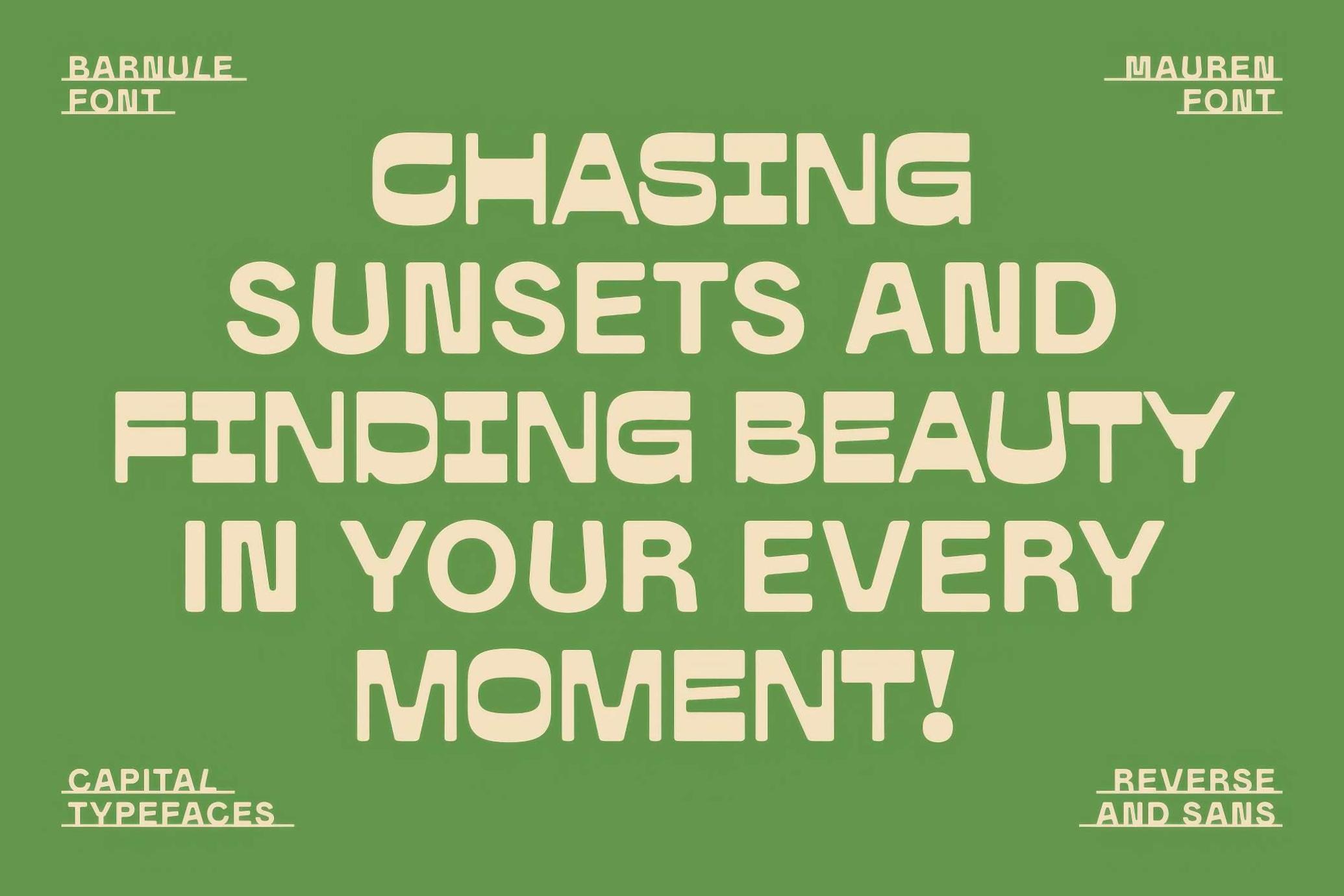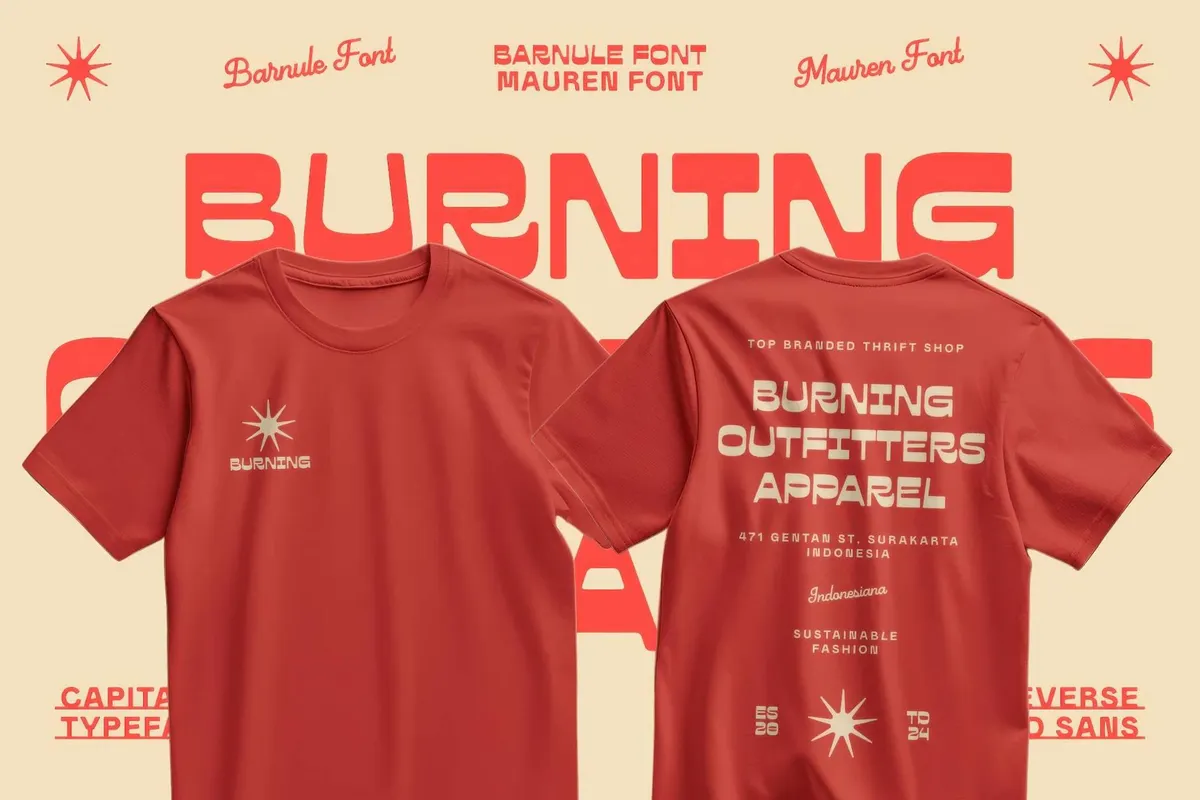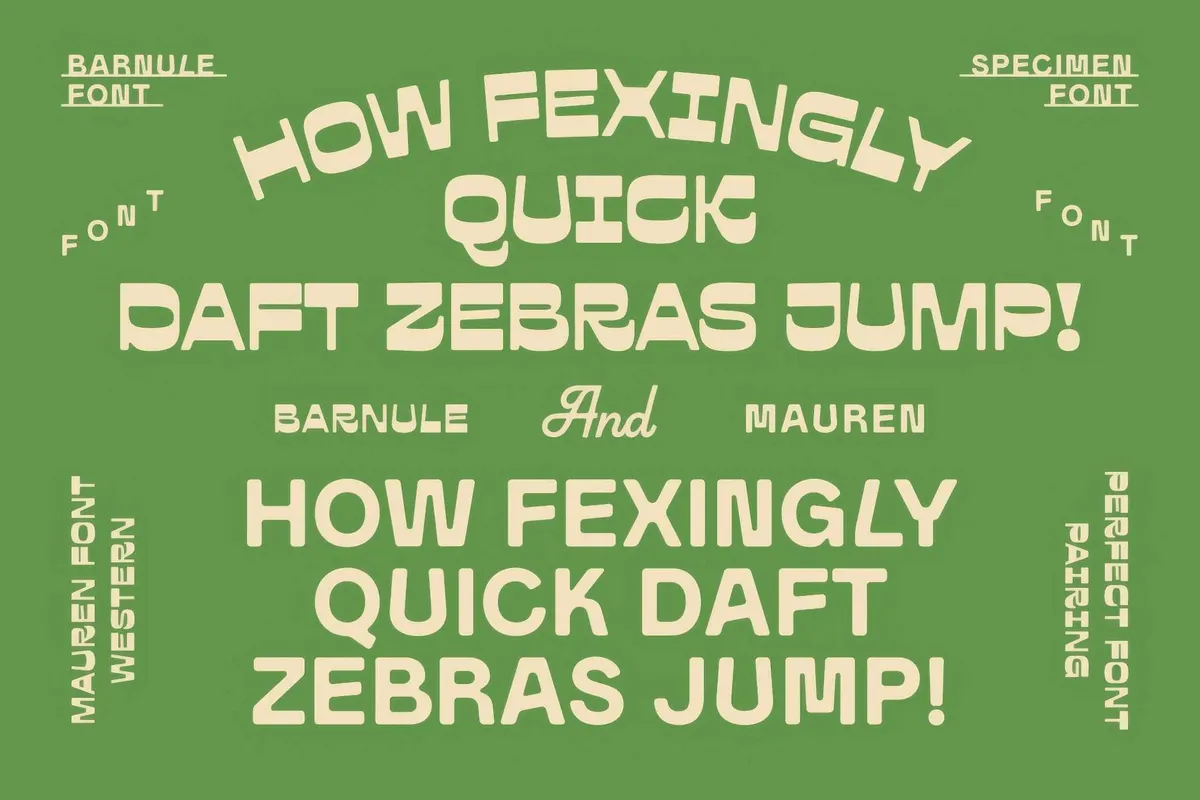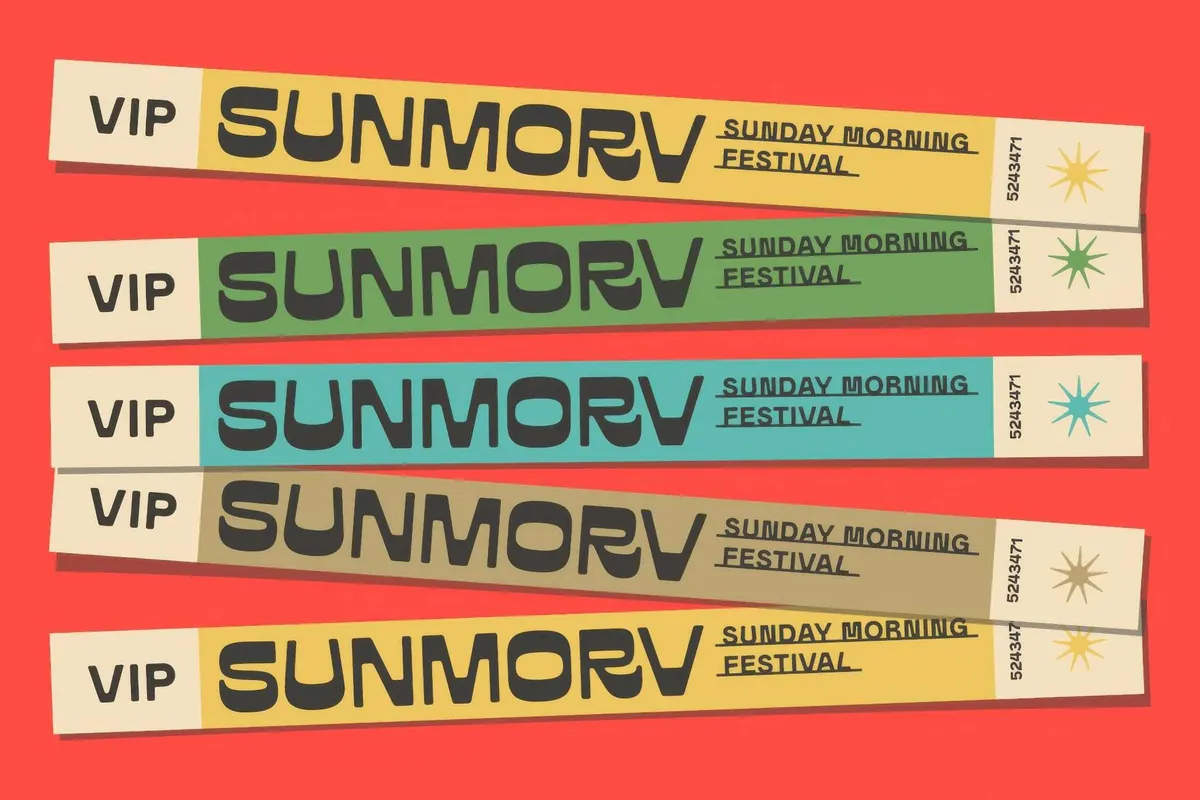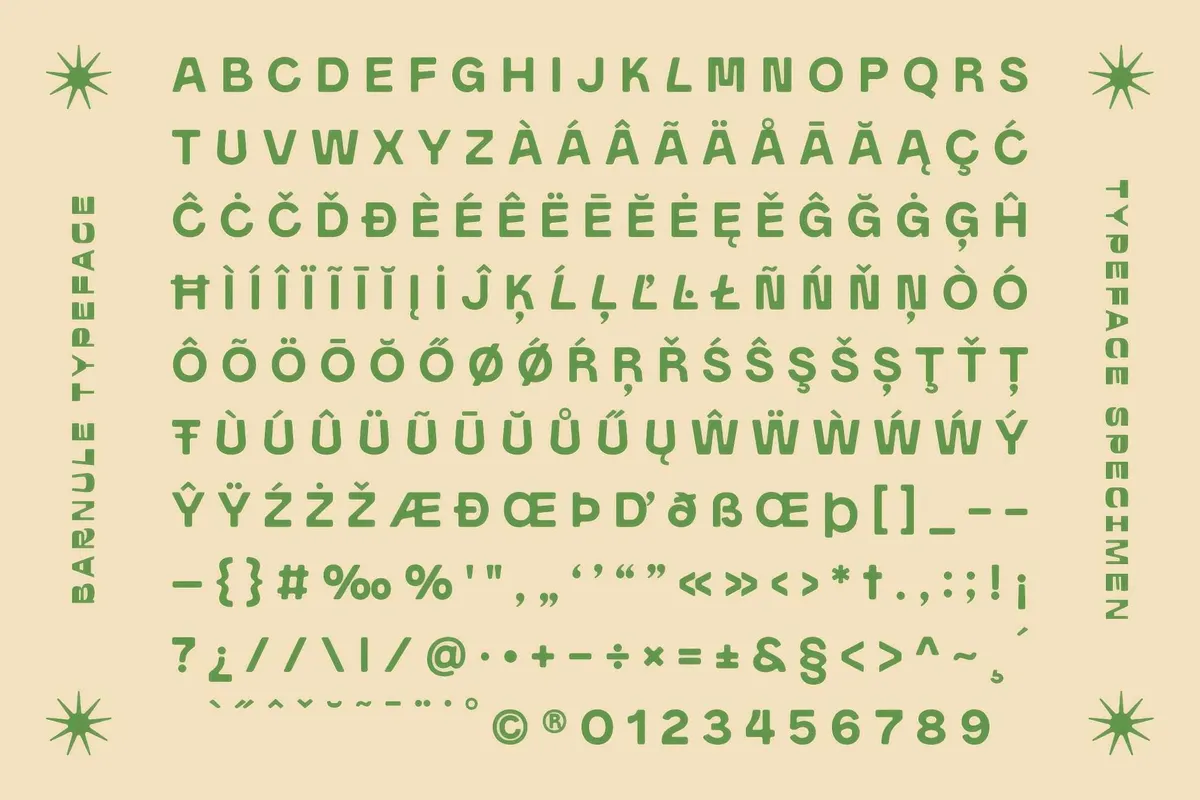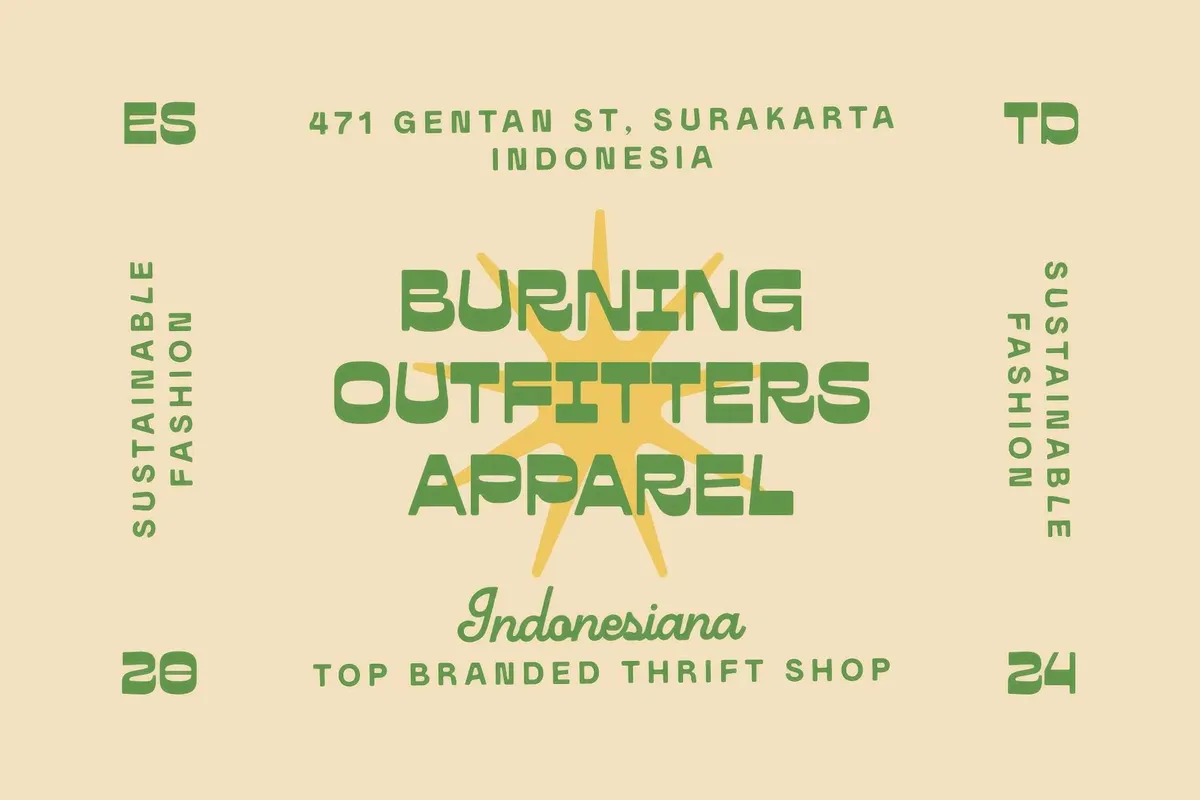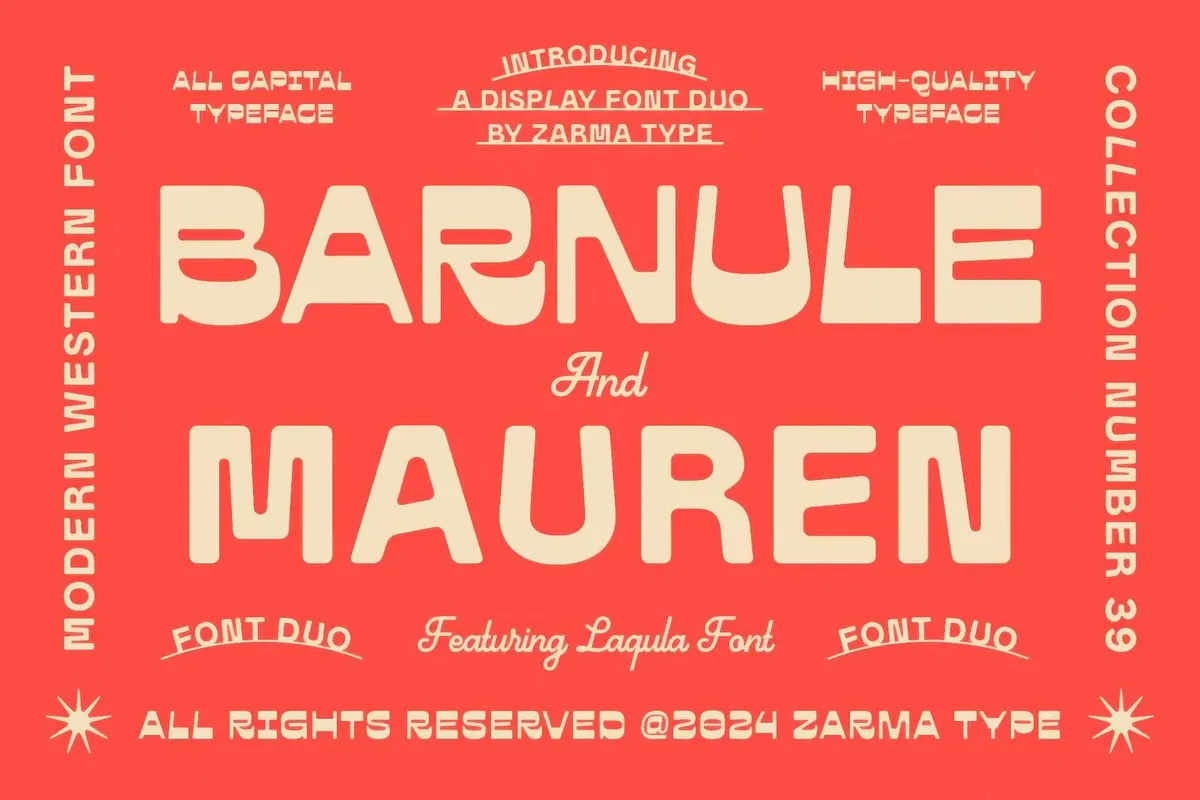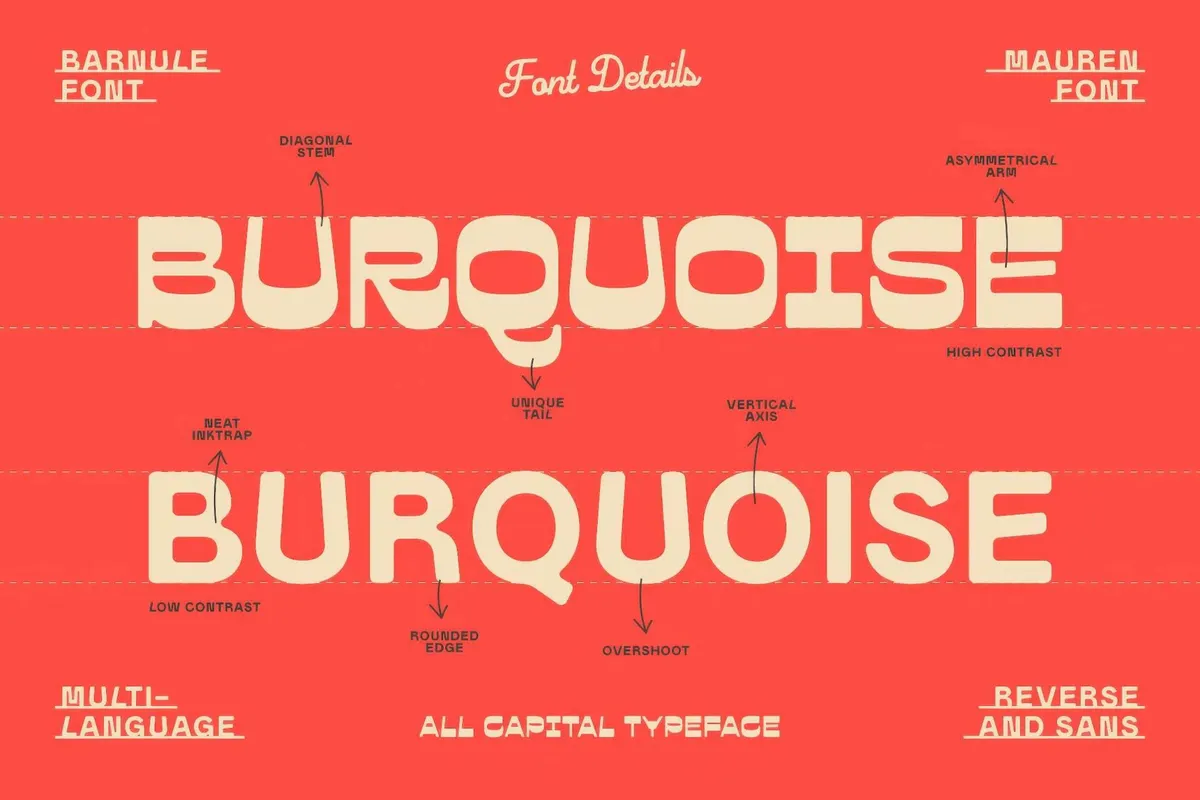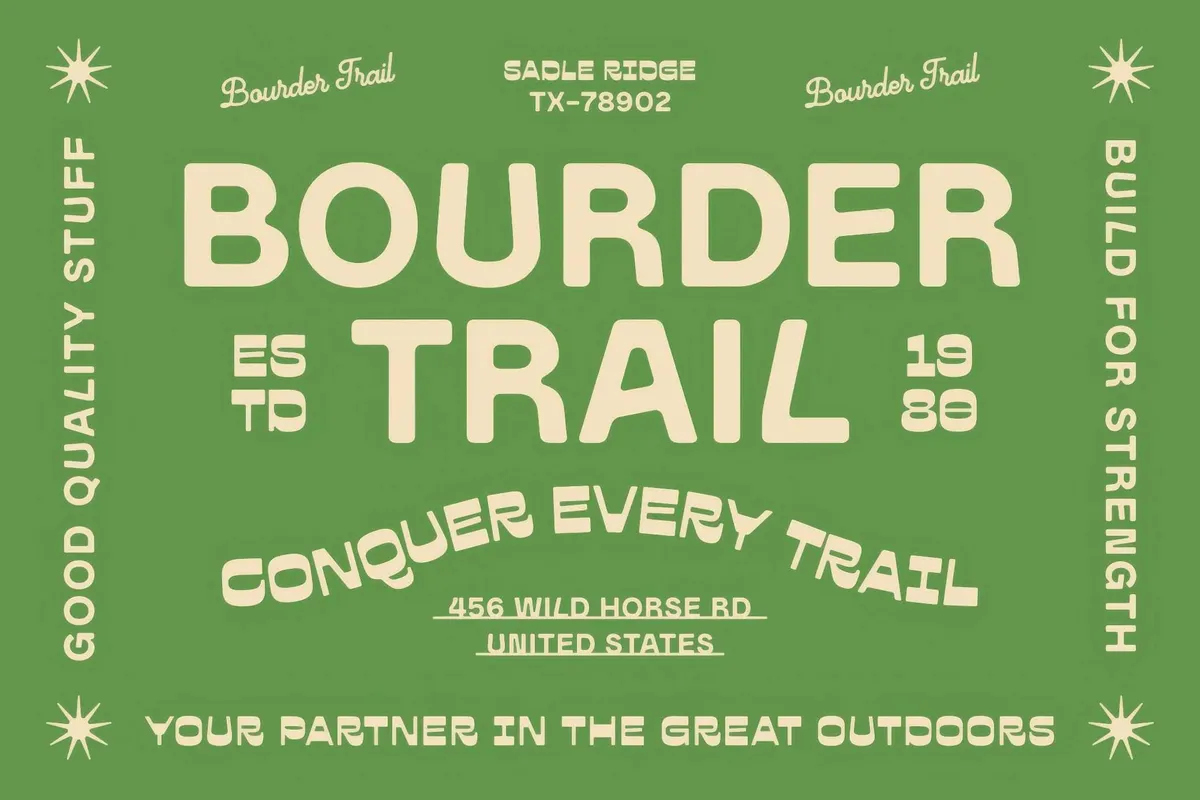
Barnule & Mauren — Western Font Duo
Barnule & Mauren duo walks into your project like it's a saloon in 1970s Palm Springs — one's wearing cowboy boots, the other's rocking a varsity jacket. Together, they serve up Western quirk with a wink. With chunky curves, wonky ink traps, and tails that won't sit still, these all-caps fonts were not designed for the background. They're more about custom tees, root beer labels, campground signs, ironic branding, or headlines.
Inside the set, you'll find two font styles with distinct personalities, multilingual support (because Barnule & Mauren speaks more than just "Yeehaw"), and OpenType features that give you options galore. Each glyph has a bit of bounce — a swagger, even — which makes the duo perfect for bold packaging, rebellious zines, vintage menus, or digital storefronts.